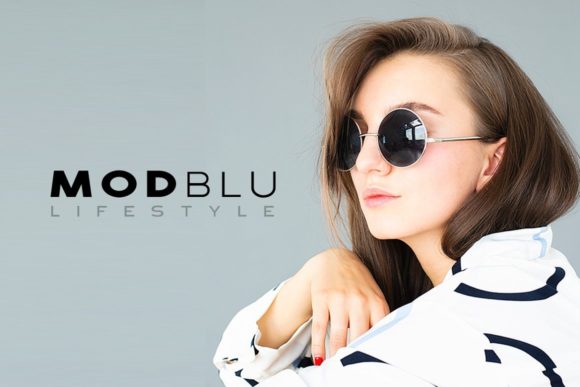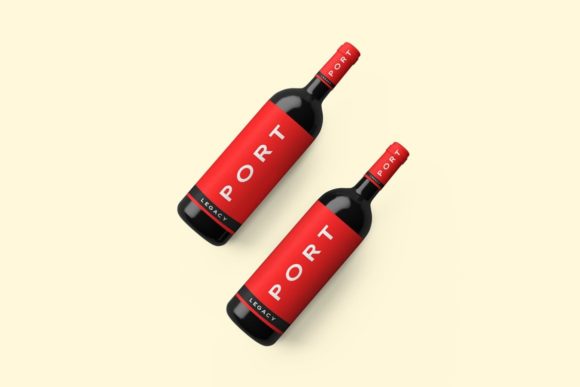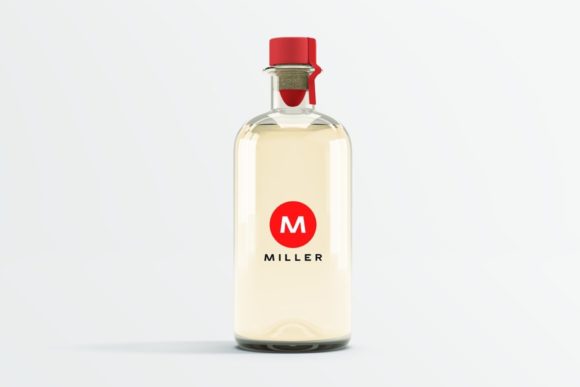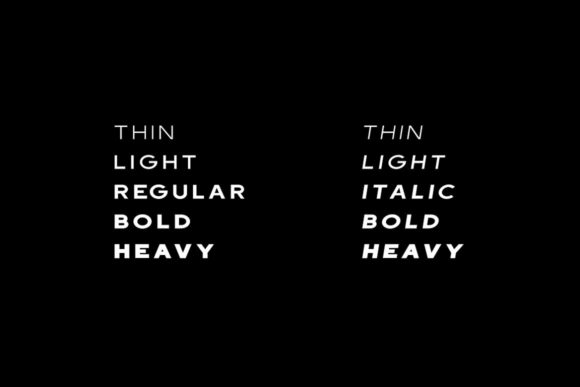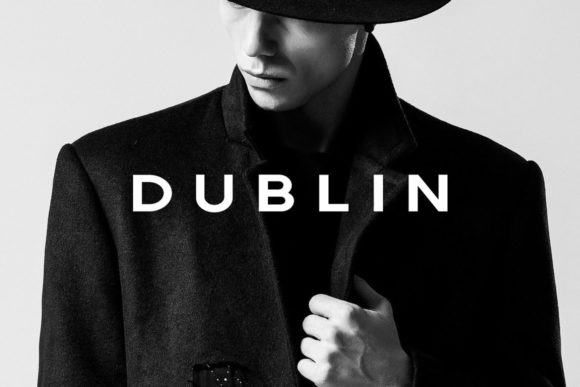
Dublin Font: Elevate Your Designs with a Modern Sans Serif
Dublin is a stunning, minimal, and modern sans serif font designed to help you create outstanding logos, unique marketing graphics, branding materials, banners, and more. This versatile font is perfect for designers and crafters looking to grab the attention of their visitors and leave a lasting impression.
What Makes Dublin Font Stand Out?
Dublin’s clean and minimalist design makes it an excellent choice for a wide range of design projects. Its modern sans serif style ensures that your designs look sleek, sophisticated, and highly professional. Whether you’re working on a logo, brochure, or social media graphic, Dublin font is sure to elevate your design to the next level.
Key Features of Dublin Font
- Minimal and Modern Design: Dublin’s simple yet stylish design makes it perfect for creating modern and trendy designs.
- Sans Serif Style: The font’s sans serif style ensures that your designs look clean, crisp, and highly legible.
- Highly Versatile: Dublin font can be used for a wide range of design projects, from logos and branding materials to marketing graphics and banners.
- Attention-Grabbing: With Dublin font, you can create designs that grab the attention of your visitors and leave a lasting impression.
Use Cases for Dublin Font
Dublin font is perfect for a variety of design projects, including:
- Logo Design: Create a stunning logo that represents your brand with Dublin font.
- Marketing Graphics: Use Dublin font to create eye-catching marketing graphics, such as brochures, flyers, and posters.
- Branding Materials: Develop a consistent brand identity with Dublin font, perfect for business cards, letterheads, and more.
- Banners and Signs: Grab the attention of your audience with Dublin font on banners, signs, and other display materials.
Dublin font offers numerous benefits for designers and crafters, including:
- Easy to Read: Dublin font is highly legible, making it perfect for designs that require clear communication.
- Customizable: The font’s simple design makes it easy to customize and modify to suit your design needs.
- Time-Saving: With Dublin font, you can create professional-looking designs in no time, saving you time and effort.
Dublin font is an exceptional choice for designers and crafters looking to elevate their designs with a modern sans serif font. Its minimal and modern design, versatility, and attention-grabbing style make it perfect for a wide range of design projects. Whether you’re working on a logo, marketing graphic, or branding material, Dublin font is sure to help you create outstanding designs that grab the attention of your visitors.